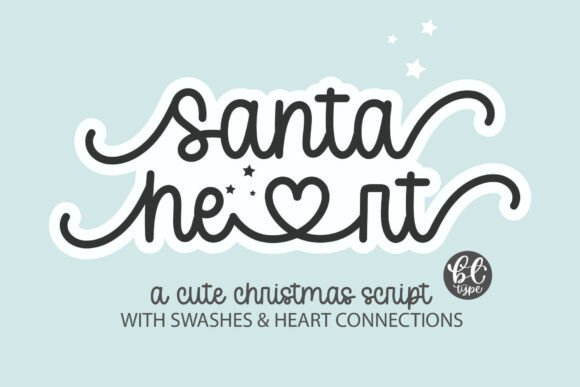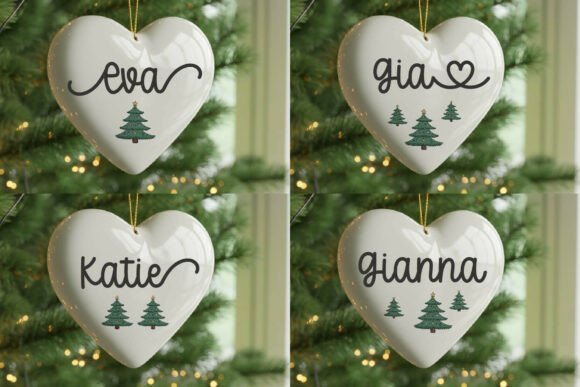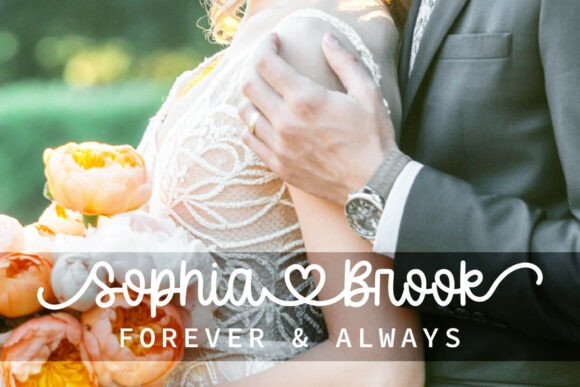
Santaheart Font
💚 Santa Heart is a cute Christmas monoline script font designed with love. This handwritten cursive font features beginning and ending swashes, playful heart connections, and smooth tails from A–Z, making it perfect for adding a magical holiday touch to your projects while keeping a minimal yet casual vibe.
Santa Heart offers a monoline cursive script in a clean handwritten style, with beginning and ending swashes for both uppercase and lowercase letters, and charming heart connections for fluid lettering. It’s compatible with Cricut and other cutting machines thanks to the included SVG file, and all alternates are easily accessible via OpenType features or by switching to the Santa Heart ALT1 and ALT2 versions. The font supports basic Latin characters, including standard English letters, numbers, and punctuation.